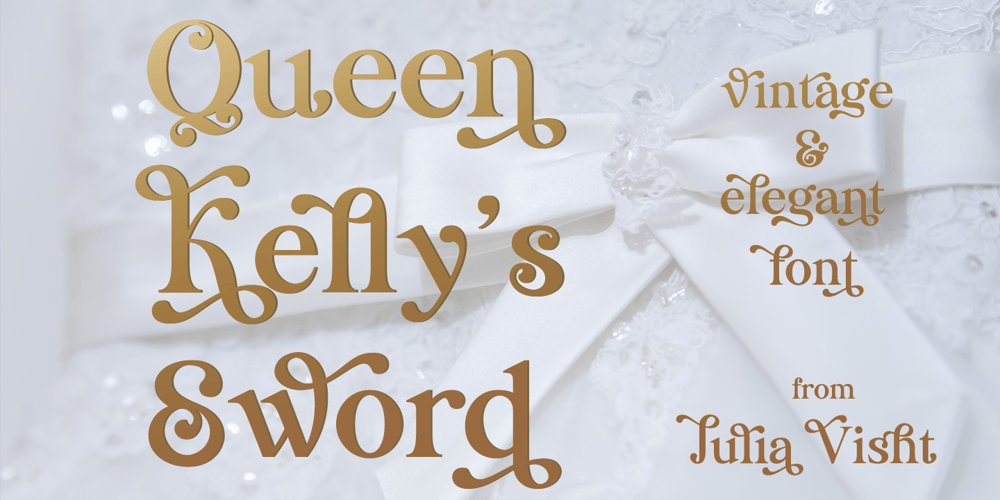
Queen Kelly Sword Regular Font Family was designed by Julia Kruk and published by Julia Visht. Queen Kelly Sword Regular contains 1 styles and family package options. “Queen Kelly’s Sword” – new elegant luxury bold serif from Julia Visht. Classical font serif with stylish decorative elements! Romantic and elegant, “Queen Kelly’s Sword” – is a luxury bold serif with both modern and vintage curves. “Queen Kelly’s Sword” is a must-have for your collection of fonts. Main features: Ligatures. Set of OpenType ligatures allows to make your design truly unique. Alternates. Set of stylistic alternates allows you to create even more authentic custom-feel text. OpenType Style Set. Open Type Style Sets allow to create many perfect styles of your text. Multyfunctionality. It’s perfect for: elegant modern branding, web-design, posters, headers, advertising, wedding stationery, book cover designs, classy packaging, album covers, greeting cards, wall art, websites, photos, and so much more. Multylangual support. English, German, Italian, French, Danish, Norwegian, Swedish, Italian, Spanish, Filipino, Scottish Gaelic, Indonesian, Irish, Swiss German, Portuguese. Stylish font for your stylish projects!Happy creating!Designers: Julia KrukPublisher: Julia Visht